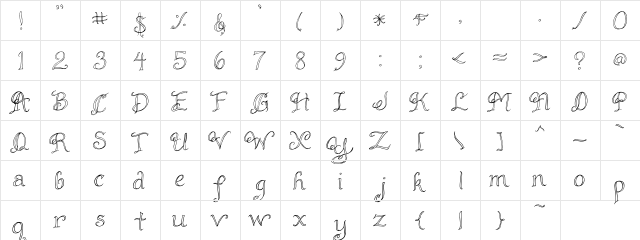
LOT Pioneer Regular
Design Context for LOT Pioneer Typeface
LOT Pioneer is a composed and adaptable typeface that performs quietly and consistently across a wide range of design contexts.